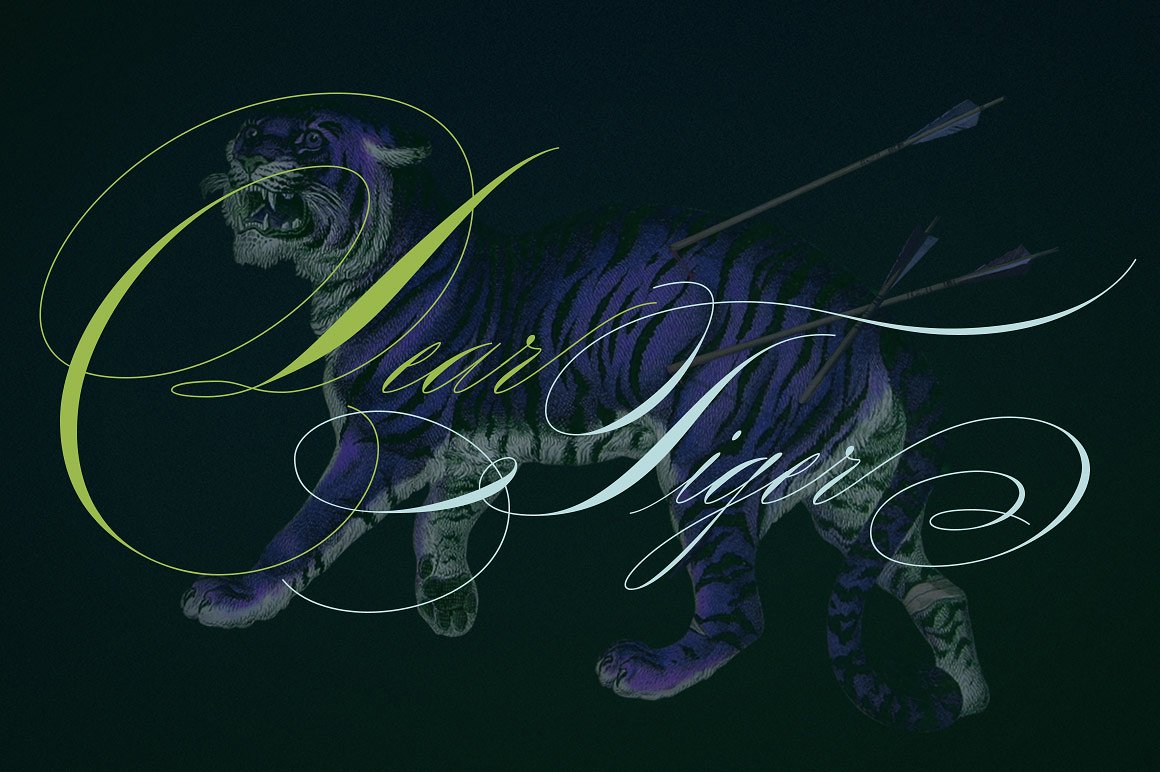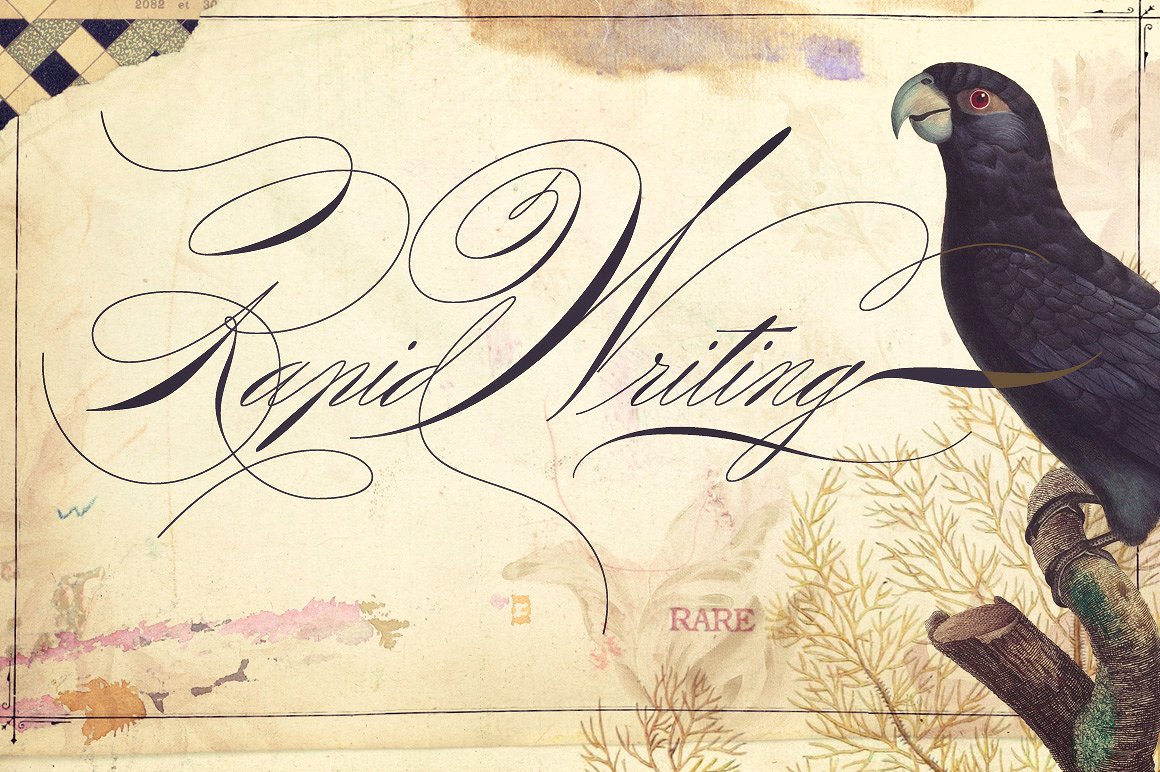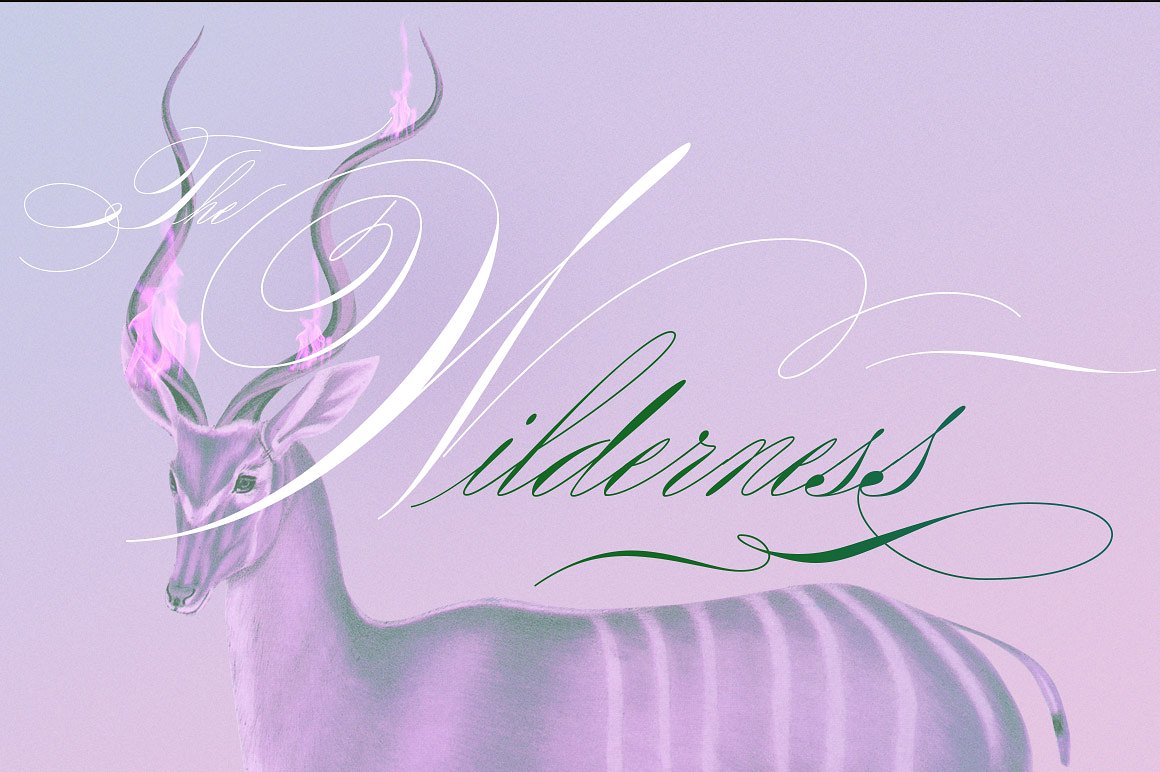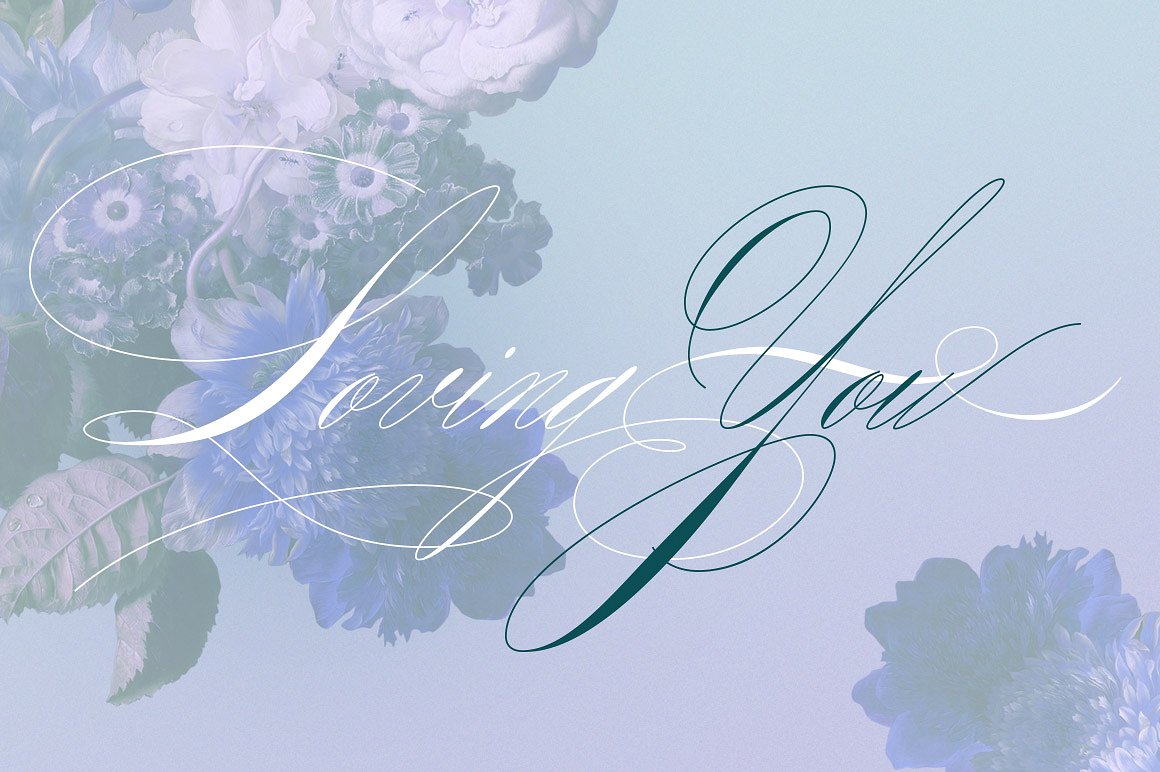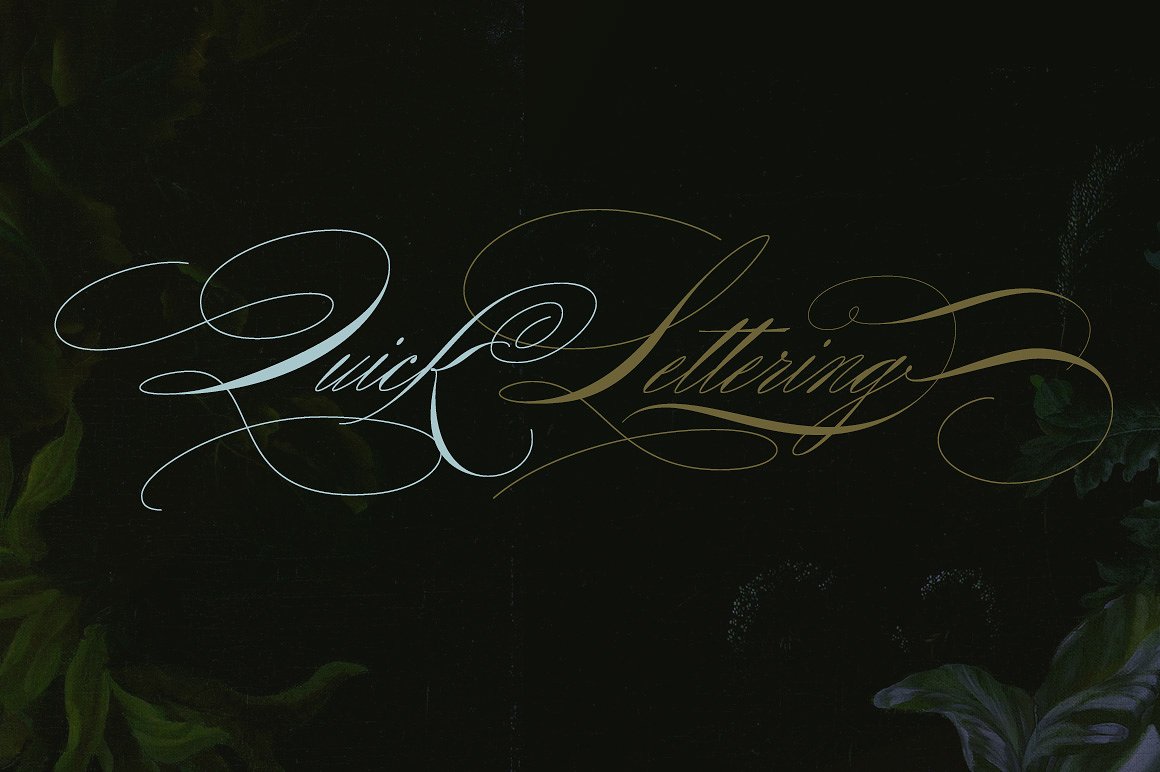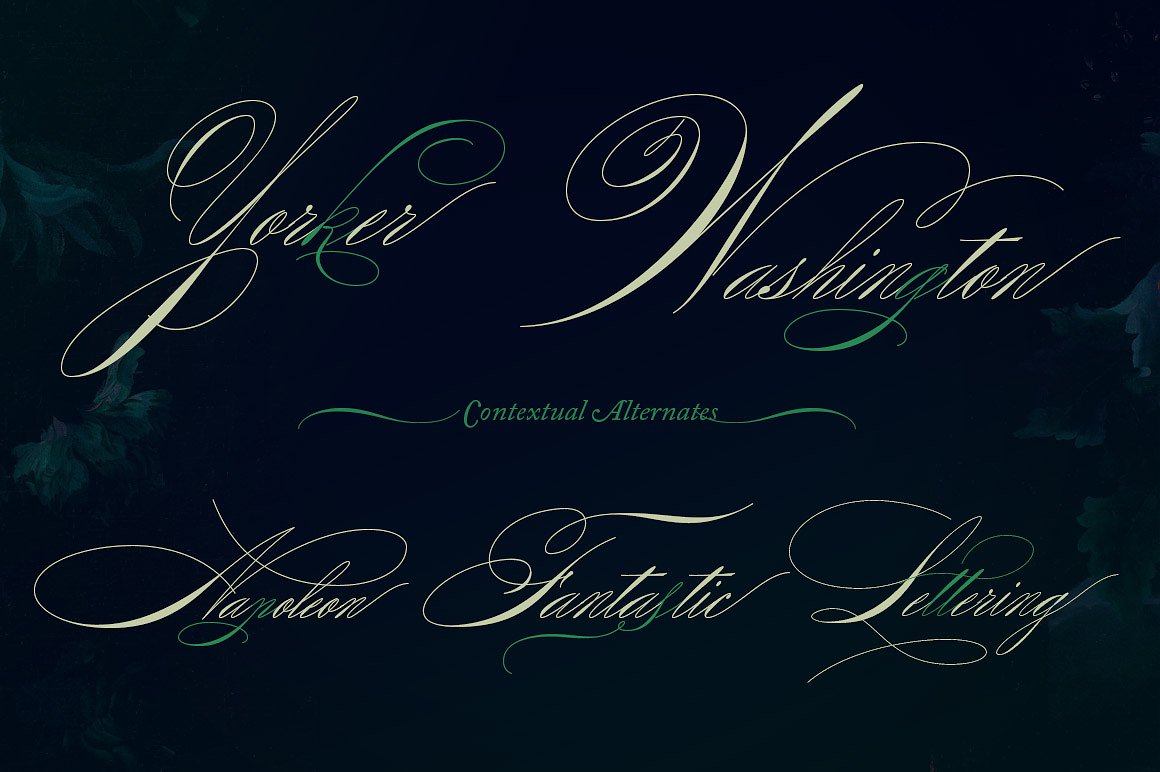
Monarchy Script Font
Monarchy is based on the Rapid and Muscular Methods of writing, where the whole arm instead of the wrist is used to write. Copybooks and vertical writing fostered form at the expense of freedom. Speed and muscular movement have fostered freedom at the expense of form. This font is based upon form and movement and brings spontaneity and freedom to calligraphy! The font is full contrast, swashes, round forms, ligatures, contextual alternates and other surprises.